2025 font pairing guide can turn a good design into a great one. Whether you’re a designer, entrepreneur, or content creator, fonts set the tone for your entire brand. In this article, we spotlight an exciting new font pairing board from DM Letter Studio — a brand celebrated for its unique, emotionally expressive typefaces.
This curated collection showcases a range of modern pairings featuring elegant scripts, bold sans-serifs, quirky displays, and retro vibes. Each combo is thoughtfully designed to bring your branding, social media, packaging, or stationery to life.
Why Font Pairing Matters
Font pairing is more than aesthetic. It affects how audiences perceive your message. When done right, a well-matched combination can:
- Establish a strong brand personality
- Enhance readability and user experience
- Create visual hierarchy and guide the reader
- Improve recognition across digital and print platforms
Let’s explore each of the featured pairings from this DM Letter Studio inspiration board.
Featured Font Pairings
1. Rusty Lemon + Heart Love
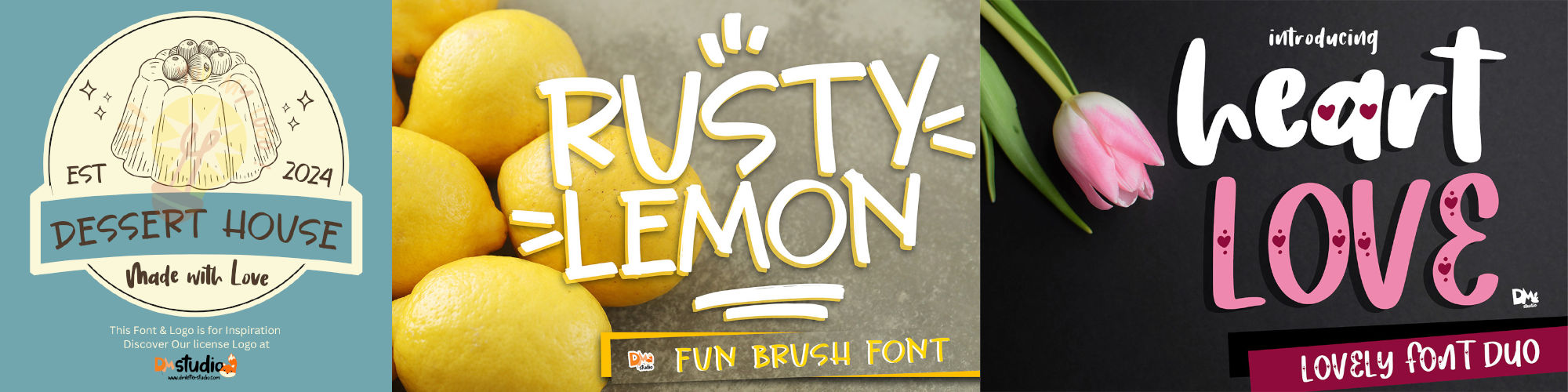
This combination is a match made in creative heaven. Rusty Lemon delivers a playful, hand-lettered aesthetic with rustic charm, while Heart Love Regular softens the tone with delicate romance. Ideal for wedding stationery, handmade goods, or self-care branding.
2. Aloha March + Blossom Fairies
Evoking tropical elegance, this pairing is warm and graceful. Aloha March offers a soft handwritten touch, and Blossom Fairies adds a floral flair with whimsical curves. Great for eco-beauty packaging, boutique apparel tags, or boho Instagram brands.
3. Brightside + Melvick
Brightside feels optimistic and welcoming with its clean, cheerful lines, while Melvick acts as the minimalist anchor — structured and modern. This versatile duo is perfect for real estate brands, editorial layouts, or wellness influencers.
4. Eighties + Bubble Dance
A retro-inspired combo that pops with personality. Eighties taps into nostalgia with neon-styled letterforms, while Bubble Dance adds a playful roundness. Think arcade-inspired branding, kid-focused packaging, or creative product labels.
5. Bigbang + Blue Friday
This energetic pair is bold and expressive. Bigbang brings thick strokes and dramatic curves, perfect for grabbing attention. Paired with Blue Friday, a cool contrast font with vintage modern flair, it’s great for tech products, music covers, or limited-edition merch.
6. Gold Sherry + Bonjour
Elegant yet casual, Gold Sherry looks like it was painted with a brush dipped in gold. Bonjour softens the effect with a friendly handwritten style. This pair fits jewelry branding, creative portfolios, and feminine product lines.
7. Artsy
Artsyy is a highly expressive typeface with artistic strokes. Used alone, it holds power in logo design, signature branding, or any context that needs flair and visual punch.
8. Rock Boys + Baby Smooch
Rock Boys is rugged and strong — a classic display font ideal for titles or product packaging with edge. Pair it with the sweeter Baby Smooch for contrast, resulting in a brand style that balances toughness and charm. Great for denim brands, skate products, or youth collections.
Design Tips for Font Pairing
Want to master font pairing like the pros? Here are key tips:
- Contrast is key: Combine thick with thin, script with sans-serif, or uppercase with lowercase.
- Establish hierarchy: Use the bolder font for headlines and the softer one for supporting text.
- Stick to two fonts: Avoid clutter by limiting your pairings.
- Stay on brand: Match the font’s personality with your message and audience.
- Test across devices: Make sure it’s legible on mobile, desktop, and print.
How These Fonts Elevate Branding
Each of these pairings from DM Letter Studio is crafted with brand identity in mind. Whether you’re creating packaging, logos, or social content, choosing fonts like these:
- Improves brand recall
- Communicates mood and emotion
- Enhances storytelling through design
- Increases perceived professionalism and polish
Where to Use These Fonts
These font pairings work beautifully across:
- Brand logos & taglines
- Instagram posts & Reels covers
- Packaging design
- Website headers & hero text
- Etsy shops & digital downloads
- Stationery, planners, and journals